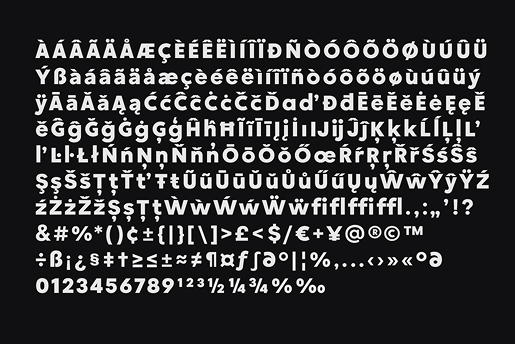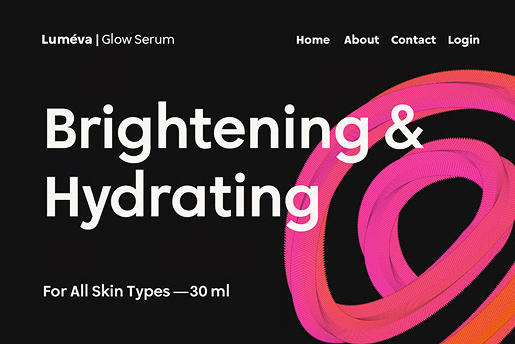
Nuventa - Sans Serif Font Family
Nuventa — The perfect blend of clarity and modern elegance. Designed with precision and purpose, Nuventa is a clean, humanist geometric sans serif that shines in any context. Its smooth, balanced letterforms ensure maximum readability, making it equally at home in sleek editorial spreads or dynamic digital interfaces.